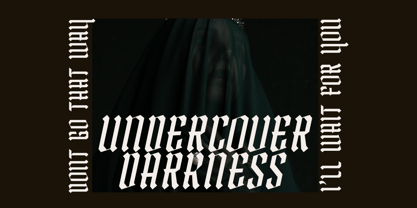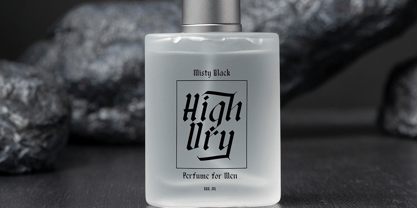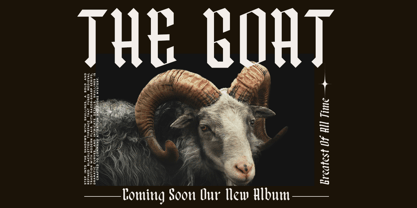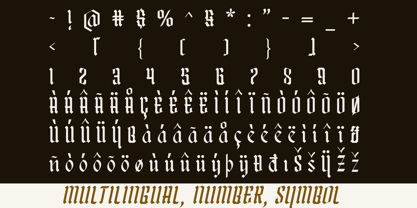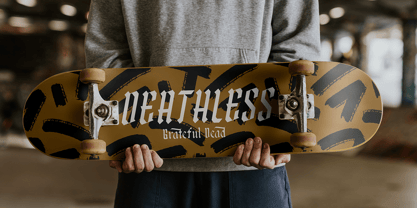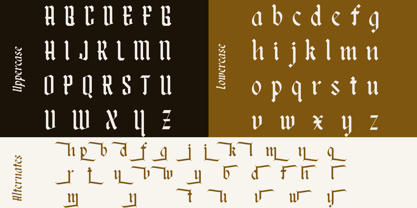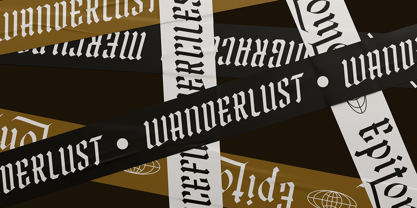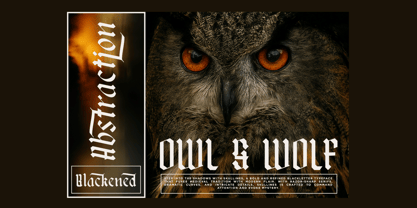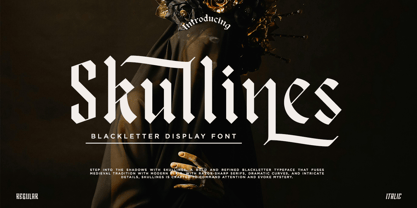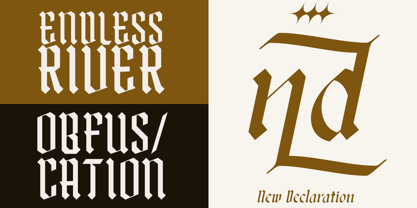
Skullines
by RagamKata
The Skullines Font Family was designed by Yogiswhara Dio Prakoso Riadi and published by RagamKata. Skullines contains 2 styles and family package options. More about this family
Introducing Skullines, a bold and refined Blackletter Display Font that blends the timeless allure of Gothic calligraphy with a sharp modern twist. Designed for creators who seek drama, elegance, and edge in their work, Skullines is a versatile typeface that adds character and impact to any design. Perfect for Brand Logo, Album Cover, Branding, Tattoo, Poster, Artwork, Headline, Tittle, Magazine, etc. Whats Included : - Skullines Regular - Skullines Italic - Multilingual Support - Stylish Alternates - Number, Symbol Thank You for Having Us !